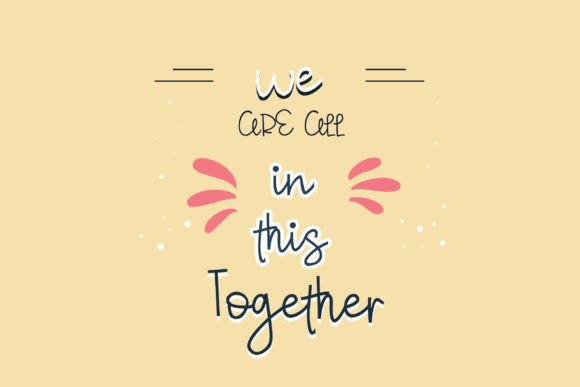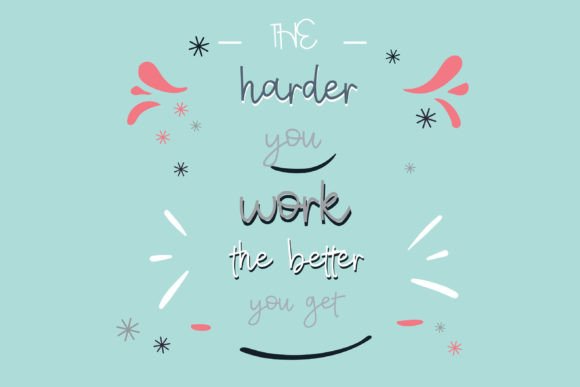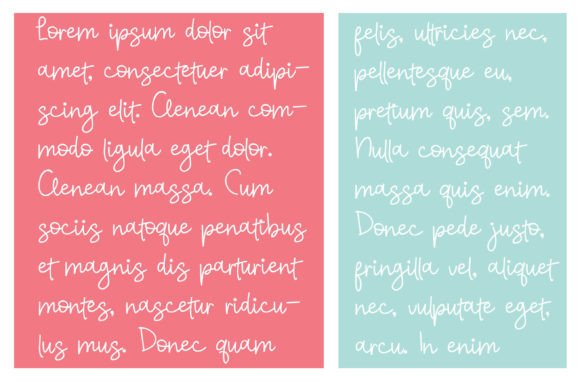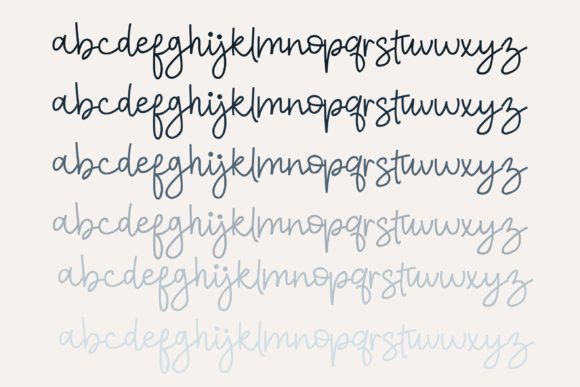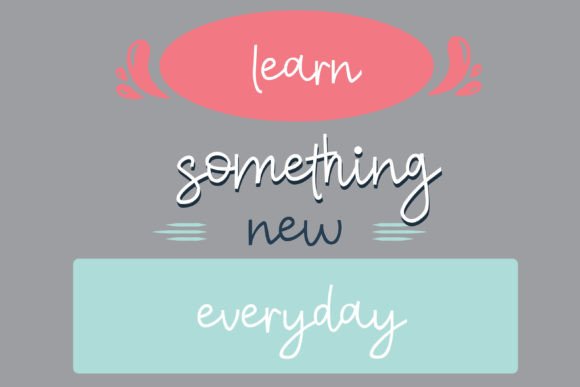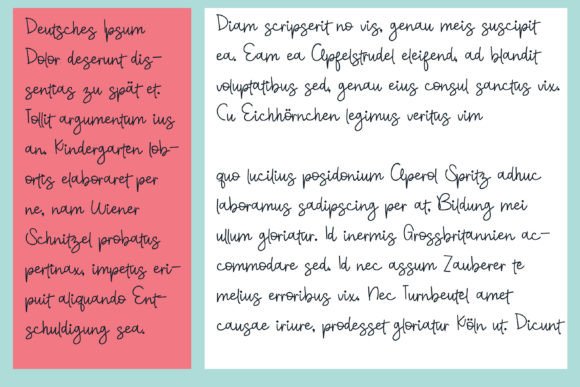
The Ultimate Guide to Gilbert Font: Unleashing Creativity and Fun
I’ll never forget the time I was working on a social media campaign for a trendy boutique client. I had a clear vision of what I wanted to create, but something was missing – the perfect font. I scrolled through my font library, but nothing seemed quite right. That’s when I stumbled upon Gilbert, a stunning script font that captured the essence of fun and creativity. In this article, I’ll share my experience with Gilbert, its features, and how to make the most of it in your designs.
An Honest Review of Gilbert Font
Gilbert is a beautifully crafted script font that exudes energy and enthusiasm. Here are some things I love about it:
- ✨ Playful and dynamic letterforms: Gilbert’s letterforms are designed to be fun and engaging, making it perfect for social media graphics, branding, and more.
- ✅ Highly versatile: This font can be used for a wide range of projects, from invitations and posters to logos and packaging.
- 💫 Excellent for headlines and titles: Gilbert’s bold and eye-catching design makes it ideal for grabbing attention and adding a touch of personality to your designs.
While Gilbert is an amazing font, it’s not without its quirks. Here are a few things to keep in mind:
- 🤔 Legibility at small sizes: Gilbert can be a bit challenging to read at small sizes, so it’s best to use it for headlines and titles rather than body text.
- ⚠️ Limited use for formal designs: Due to its playful nature, Gilbert may not be the best choice for formal designs, such as business reports or academic papers.
The Story Behind Gilbert Font
Gilbert was designed by a team of typographers who wanted to create a font that would capture the essence of fun and creativity. Inspired by the playful and dynamic letterforms of classic script fonts, Gilbert is the result of a meticulous design process that aimed to create a font that’s both beautiful and functional.
| Font Name | Gilbert Font |
| Author | Illustration Ink |
| What is Gilbert font best used for? | Gilbert is perfect for social media graphics, branding, and designs that require a touch of fun and creativity. |
| Does Gilbert support OpenType features? | Yes, Gilbert supports OpenType features, including stylistic alternates and glyphs. |